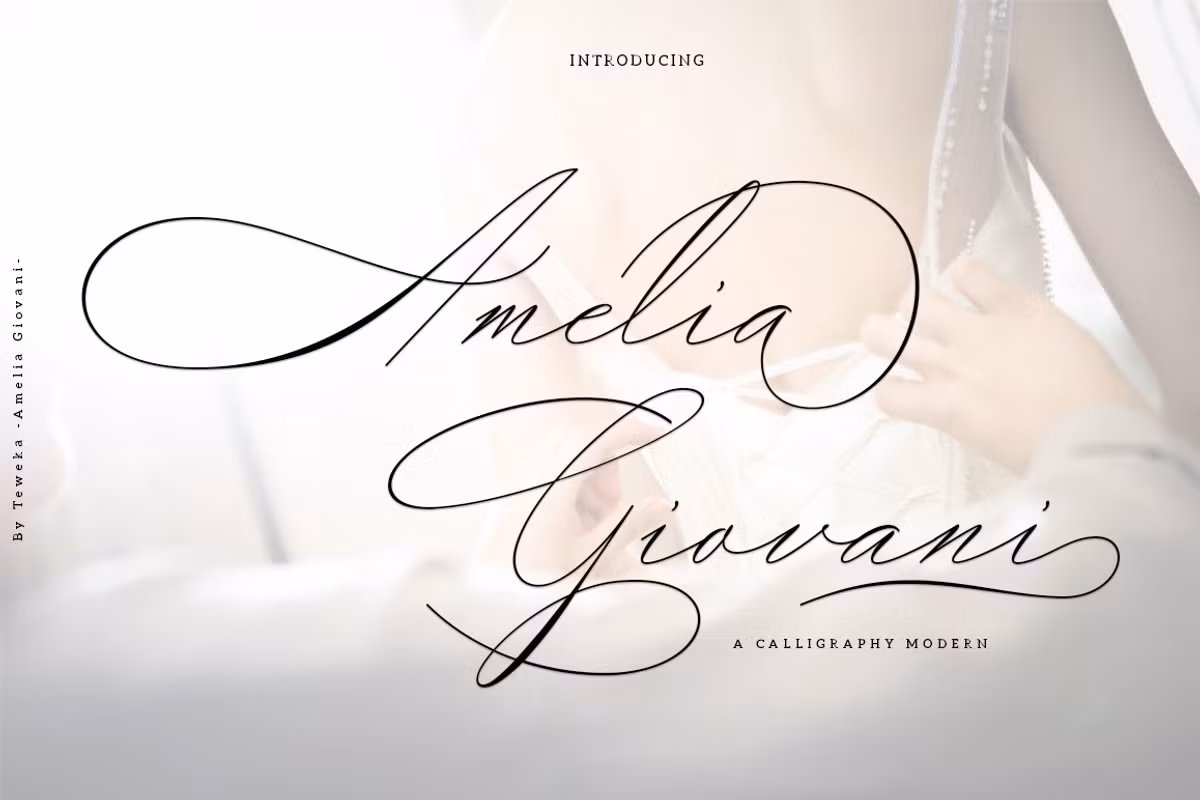
Amelia Giovani Font Free Download is a romantic and sophisticated script typeface that blends elegance with graceful flow. Please note: you must purchase this font for commercial use, but you can test it through a free download. With its delicate curves, refined strokes, and luxurious feel, Amelia Giovani is perfect for wedding invitations, fashion branding, beauty packaging, greeting cards, and social media content that needs a touch of class.
This font captures the charm of modern calligraphy, making your designs feel personal yet upscale. Whether you're designing a high-end logo or crafting heartfelt stationery, Amelia Giovani Font Free Download delivers timeless beauty and expressive style. Fully compatible with Adobe Illustrator, Photoshop, Canva, and other design tools, it’s easy to integrate into any creative project. Download it today for personal use and let your work flourish with the graceful elegance of Amelia Giovani.